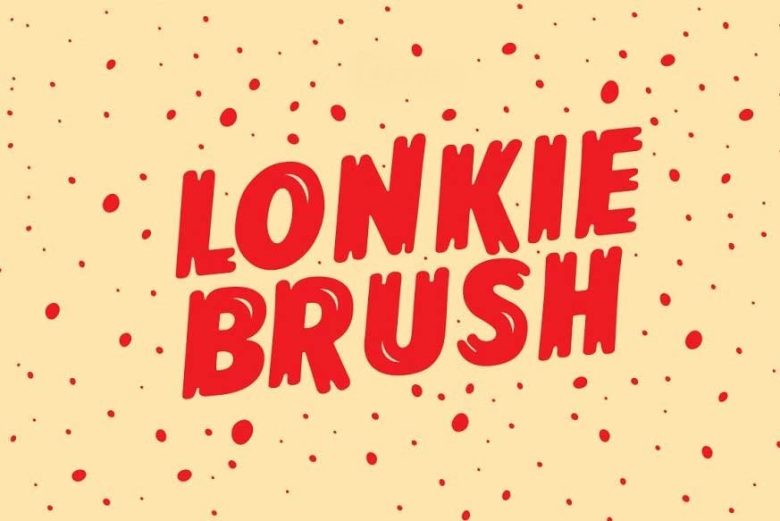
Lonkie Brush Font Family
The name Lonkie invokes 3 words: glamour, ambition and cordiality. The idea of making a handwritten font.
With its playful and soft forms, it also expresses a form of a professional look that can be used in many different contexts.